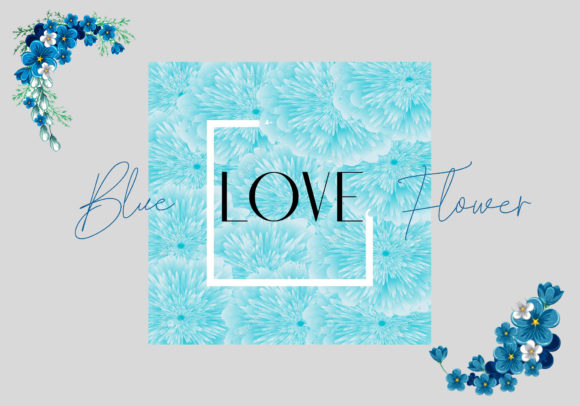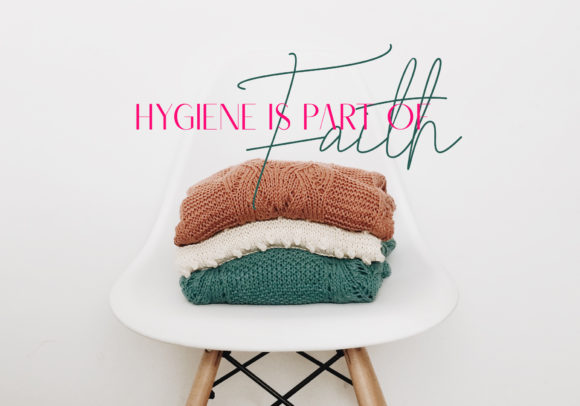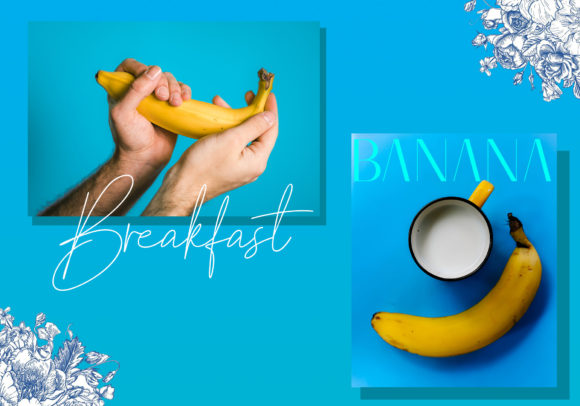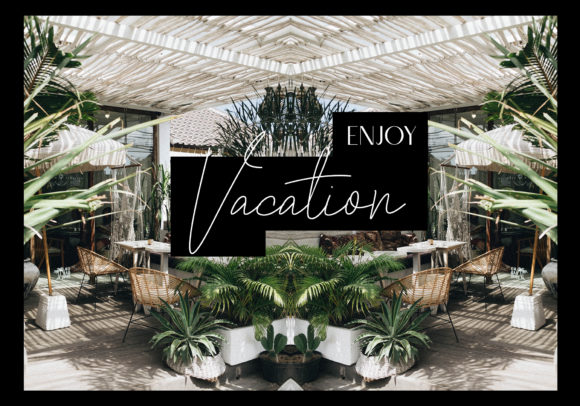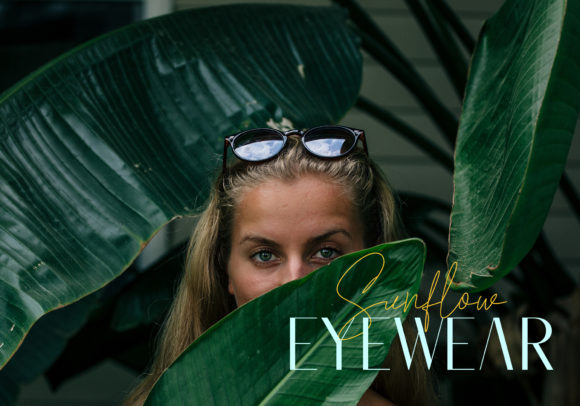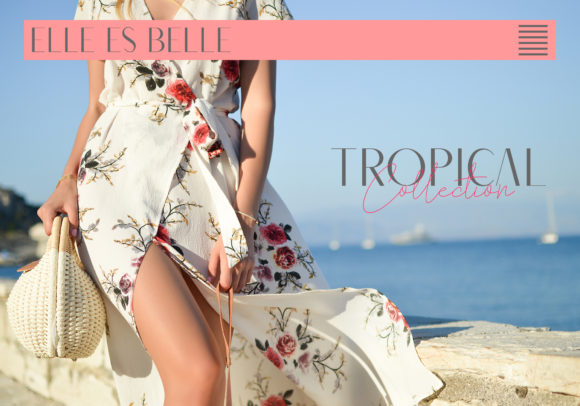
The Perfect Pair for Your Next Design Project
Have you ever been in the middle of a design project, staring at a blank page, trying to decide on the perfect font combination? The struggle is real, but fear not, dear designers! Today, we’re excited to introduce you to the Banana Carolline Duo Font, a stunning pairing that’s sure to elevate your work.
This beautiful font duo features a bold script and a timeless sans serif font, making it the perfect addition to any design project. Whether you’re working on a magazine, a blog, or a social media campaign, the Banana Carolline Duo Font is sure to add a touch of sophistication and style. As a designer, you know how valuable it is to have a versatile font that can be used in a variety of contexts, and this duo delivers.
Banana Carolline Duo Font Key Features
- Font Family: Banana Carolline Duo, a unique and elegant script font
- Font Size: The font is available in a single size, but can be scaled to various sizes for different applications
- Resolution: Designed for high-resolution displays, suitable for use in digital and print media
- Unique Characteristics: Features a beautiful, flowing script style with a touch of elegance and sophistication
- Character Set: Includes a wide range of characters, including Latin, Cyrillic, and Greek alphabets, as well as punctuation and symbols
Review of Banana Carolline Duo Font
Overall, I think the Banana Carolline Duo Font is a unique and interesting choice for designers looking for something a bit different. ✨ The font has a lovely, hand-drawn feel that adds a touch of whimsy and personality to any design.
- ✨ The font’s irregularities give it a lot of character and make it stand out in a crowded market.
- ✨ The font is highly customizable, making it easy to adjust the size, color, and style to suit your needs.
- ✨ The font is available in a range of weights and styles, making it versatile and easy to use in a variety of contexts.
- ⚠️ The font may not be suitable for use in small sizes or for body text, as the irregularities can make it difficult to read.
- ⚠️ The font may not be compatible with all operating systems or devices, which could limit its use in certain contexts.
Overall, I think the Banana Carolline Duo Font is a great choice for designers who want to add some personality and whimsy to their designs. While it may have some limitations, the font’s unique character and high level of customization make it a great option for designers who are looking for something a bit different.
Practical Application Guide for Banana Carolline Duo Font
Here are some tips for getting the most out of the Banana Carolline Duo font:
- Use the font for creative and artistic projects, such as invitations, posters, and brochures.
- Pair the font with other creative fonts to create a unique and eye-catching design.
- Use the font for titles and headings to add a touch of elegance and sophistication.
Carolyna Pro is a elegant script font that is designed to evoke a sense of classic sophistication. It features a flowing, handwritten feel with a subtle flair at the end of each letter, making it perfect for creating a sense of elegance and refinement. Compared to Banana Carolline Duo Font, Carolyna Pro has a more classic and timeless feel, making it suitable for designs that require a sense of tradition and heritage.
Carolyna Pro Italic
Carolyna Pro Italic is a elegant script font that is designed to evoke a sense of classic sophistication. It features a flowing, handwritten feel with a subtle flair at the end of each letter, making it perfect for creating a sense of elegance and refinement. Compared to Banana Carolline Duo Font, Carolyna Pro Italic has a more classic and timeless feel, making it suitable for designs that require a sense of tradition and heritage.
Q: What is the recommended font size for the Banana Carolline Duo Font?
The recommended font size for the Banana Carolline Duo Font is between 12-24 points. This allows for optimal readability and legibility. However, you can experiment with different font sizes to achieve the desired visual effect for your design project.